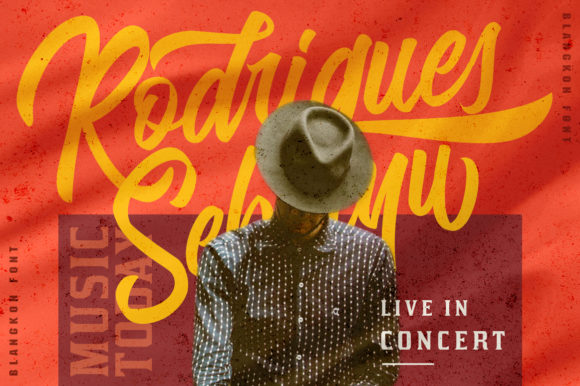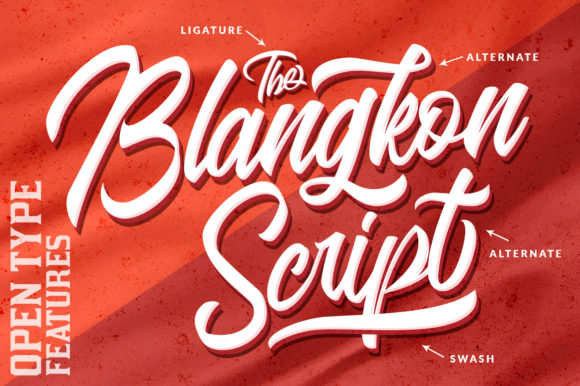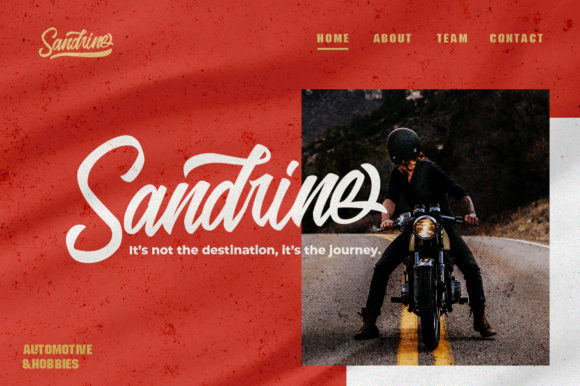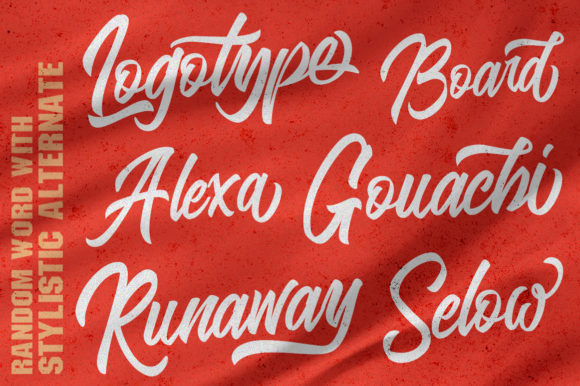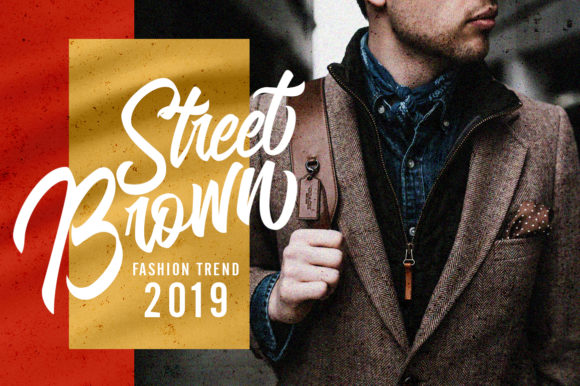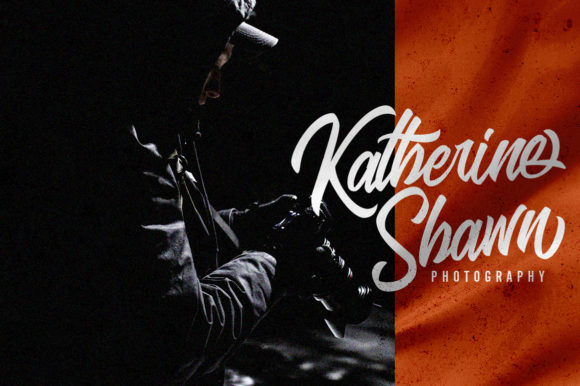
Introducing Blangkon Script Font: Elevate Your Designs with a Personal Touch
In the world of typography, script fonts hold a special place for their elegance, personality, and versatility. Among the myriad of script fonts available, the Blangkon Script Font stands out for its unique blend of contemporary flair and natural handwritten charm. Inspired by the latest trends in fashion and streetwear, this amazing script font is designed to infuse your designs with a personal feel, making it perfect for a wide array of projects.
The Inspiration Behind Blangkon Script
The Blangkon Script Font draws its inspiration from the dynamic and ever-evolving world of contemporary fashion and streetwear. Its creators aimed to capture the essence of modern style, translating it into a typographic form that is both stylish and approachable. The result is a script font that feels fresh, current, and incredibly versatile.
Key Features of Blangkon Script Font
- Natural Handwritten Touch: One of the standout features of the Blangkon Script Font is its natural, handwritten appearance. This gives your designs a personal and authentic feel, setting them apart from more uniform and traditional typography.
- Contemporary Flair: With its roots in contemporary fashion and streetwear, this script font embodies a modern aesthetic that will appeal to designers looking for something current and trendy.
- Versatility: The Blangkon Script Font is incredibly versatile, making it suitable for a wide range of design projects. Whether you’re working on logos and branding, invitations, stationery, wedding designs, social media posts, advertisements, product packaging, or anything in between, this font can help you achieve your creative vision.
Applications of Blangkon Script Font
The possibilities are endless when it comes to using the Blangkon Script Font. Here are some of the key areas where this font truly shines:
- Logos & Branding: Create memorable and stylish logos that reflect your brand’s personality with the Blangkon Script Font.
- Invitations & Stationery: Add a touch of elegance and personalization to your invitations, greeting cards, and stationery.
- Wedding Designs: Make your wedding designs, such as save-the-date cards, wedding invitations, and ceremony programs, truly special with this beautiful script font.
- Social Media Posts: Elevate your social media presence with eye-catching posts and stories that utilize the Blangkon Script Font.
- Advertisements: Create compelling and stylish advertisements that grab attention and convey your message effectively.
- Product Packaging: Stand out in the market with product packaging that features unique and captivating typography.
Why Choose Blangkon Script Font?
In a sea of script fonts, the Blangkon Script Font offers a unique combination of style, personality, and versatility. Its contemporary inspiration ensures that your designs feel current and relevant, while its natural handwritten touch adds warmth and authenticity. Whether you’re a professional designer or a DIY enthusiast, this font provides an easy way to elevate your designs and make them more engaging.
| Font Name | Blangkon Script Font |
| Author | Kotak Kuning Studio |
The Blangkon Script Font is a powerful tool for designers and crafters looking to add a personal touch to their work. With its contemporary inspiration, natural handwritten appearance, and wide range of applications, it’s an excellent choice for anyone seeking to create stylish and memorable designs. Explore the possibilities of the Blangkon Script Font and discover how it can transform your projects into something truly special.